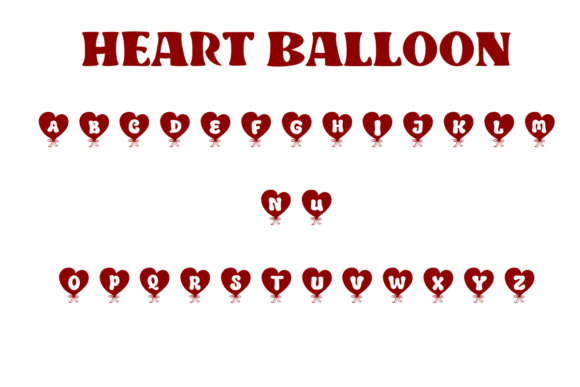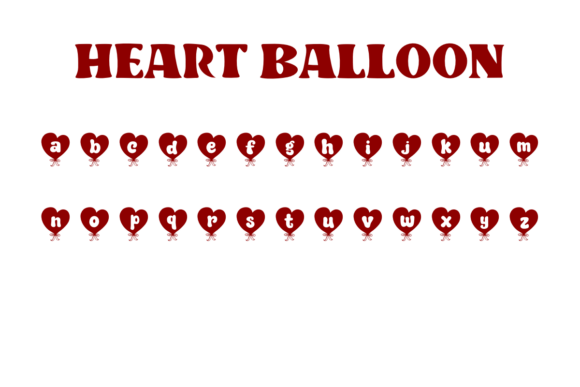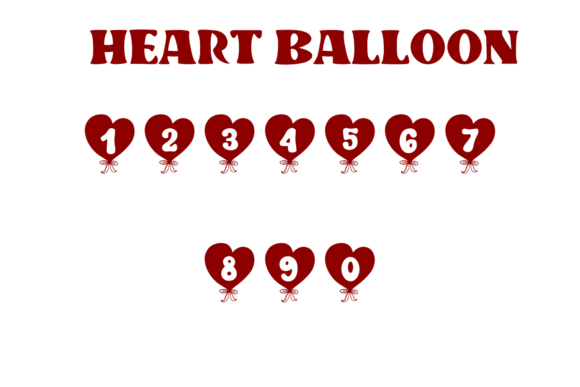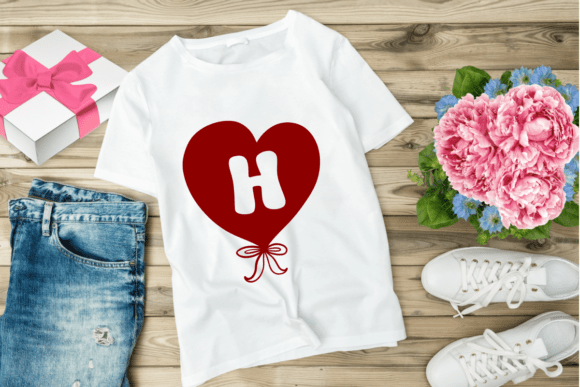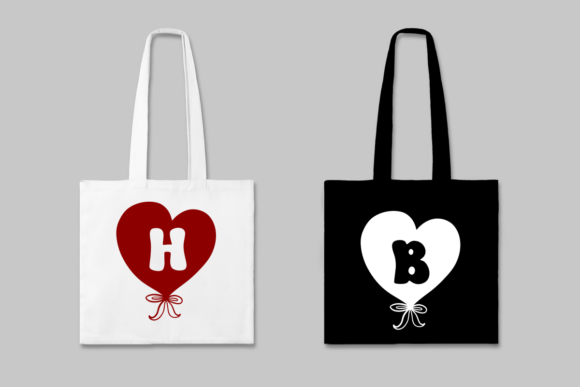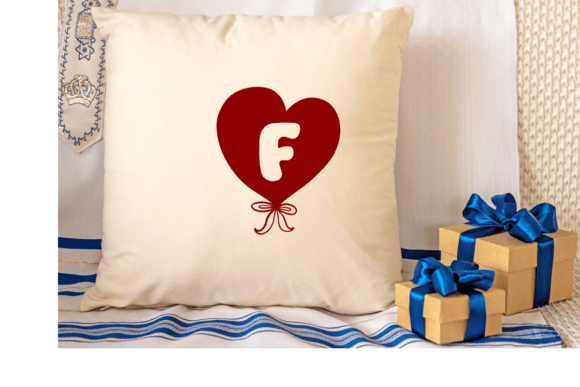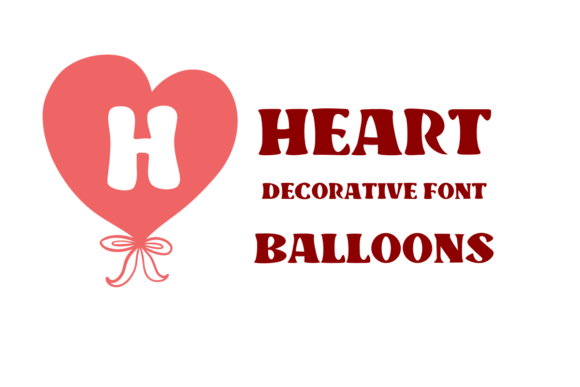
Introducing Heart Balloons Font: The Perfect Decorative Touch for Your Designs
Are you looking for a font that adds a touch of whimsy and romance to your designs? Look no further than Heart Balloons Font! This decorative font is perfect for crafters, designers, and anyone looking to add a personal touch to their creations. In this article, we’ll explore the features and uses of Heart Balloons Font, and how it can elevate your designs to the next level.
What is Heart Balloons Font?
Heart Balloons Font is a unique and decorative font that features heart-shaped balloons in various sizes and orientations. The font is designed to be playful, romantic, and eye-catching, making it perfect for a variety of design projects. Whether you’re creating greeting cards, banners, or social media posts, Heart Balloons Font is sure to add a touch of personality and charm.
Uses for Heart Balloons Font
One of the best things about Heart Balloons Font is its versatility. While it’s perfect for traditional uses like:
- Taking notes and writing in a diary
- Creating greeting cards and invitations
- Designing banners and signs
It’s also great for more modern applications, such as:
- Customizing mugs and water bottles
- Designing social media posts and graphics
- Creating custom stationery and journals
- Adding a personal touch to shirts and apparel
Why Choose Heart Balloons Font?
So why choose Heart Balloons Font over other decorative fonts? Here are just a few reasons:
- Unique and eye-catching: Heart Balloons Font is unlike any other font out there. Its unique heart-shaped balloons are sure to grab attention and add a touch of personality to your designs.
- Versatile: Whether you’re creating digital or print designs, Heart Balloons Font is perfect for a wide range of applications.
Tips for Using Heart Balloons Font
Here are a few tips for getting the most out of Heart Balloons Font:
- Experiment with sizes and colors: Don’t be afraid to try out different sizes and colors to add depth and interest to your designs.
- Mix and match with other fonts: Heart Balloons Font pairs well with a variety of other fonts, so don’t be afraid to get creative and try out different combinations.
- Use it sparingly: While Heart Balloons Font is eye-catching, it can also be overwhelming if overused. Try using it sparingly to add a touch of personality to your designs.
Heart Balloons Font is a unique and versatile decorative font that’s perfect for crafters, designers, and anyone looking to add a personal touch to their creations. With its eye-catching heart-shaped balloons and easy-to-use design, it’s the perfect addition to any design project. Whether you’re creating greeting cards, banners, or social media posts, Heart Balloons Font is sure to add a touch of whimsy and romance. So why wait? Download Heart Balloons Font today and start creating!
By incorporating Heart Balloons Font into your designs, you’ll be able to add a touch of personality and whimsy that sets your work apart. So why wait? Start creating with Heart Balloons Font today!